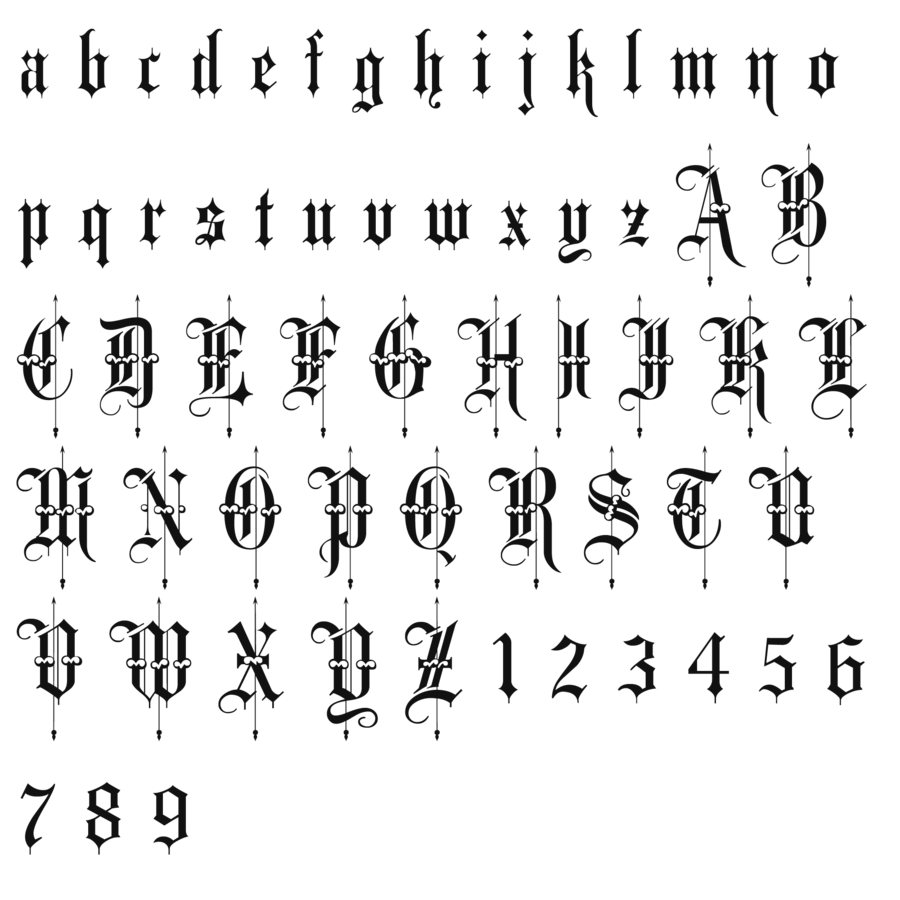
HEY GUYS! ^^ i know, something i submitted that i dont normally submit so whut the heck right? ^^anyways, i dont know if you guys heard but i am really into kuroshitsuji/black butler now a days and well, i've been searching crazily for the font and guess what, i foind one thats almost close to it ^^
i dont know if this is the exact font, but yeah, it sorta looks like it ^^......
OH! I love this font I saw it on dafont.com, it's not really the black butler font ( I think it looks better lol) but on that site there is 2 fonts that are exactly the black butler fonts they look similar to this one but this one looks better Β
I think it's called fancy text font or minister font, you can find it on dafont.com it's located in 2 places.